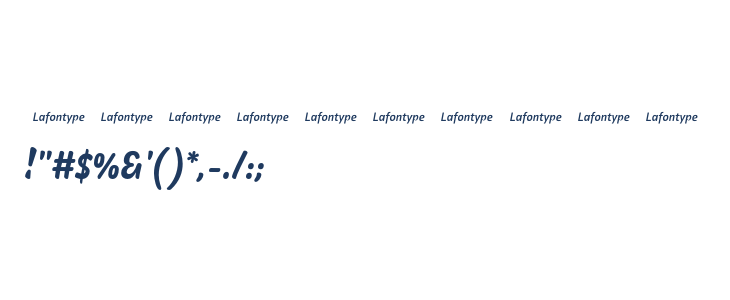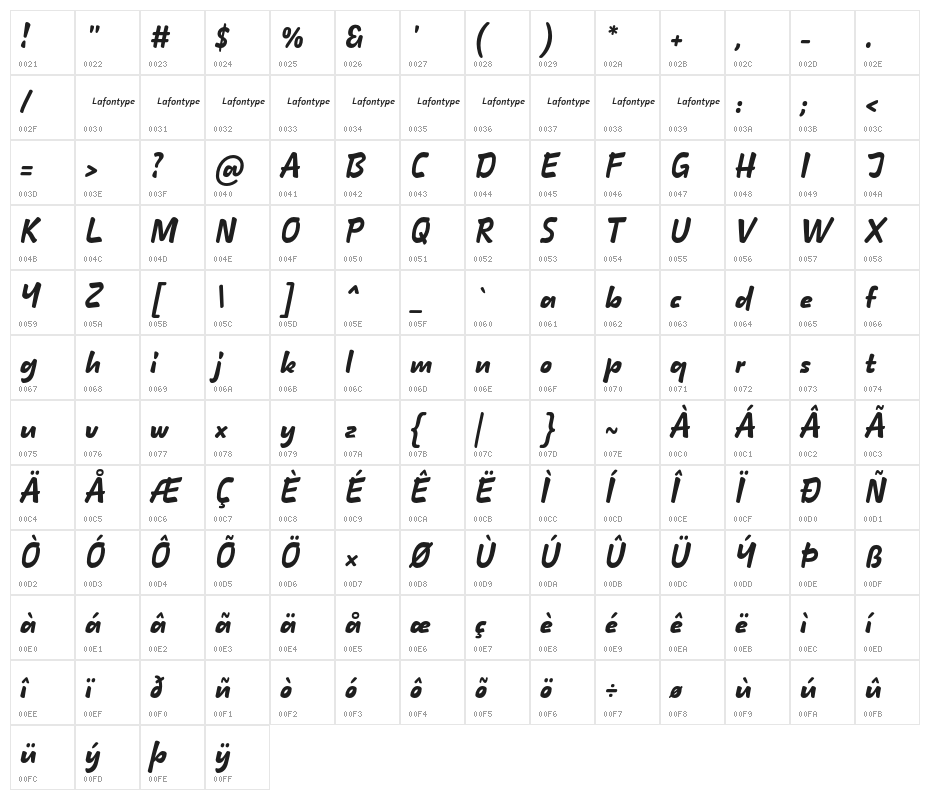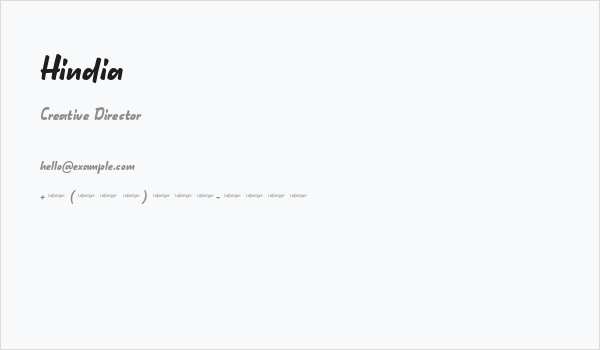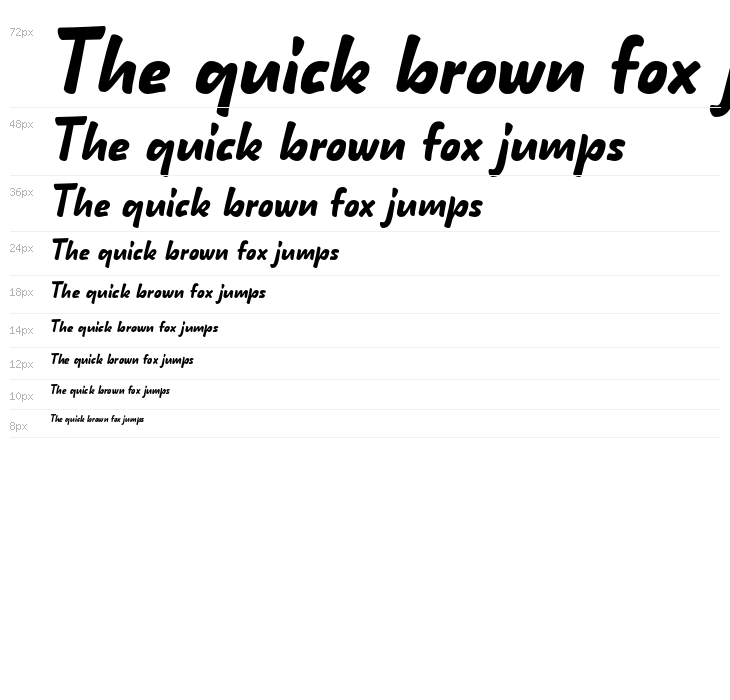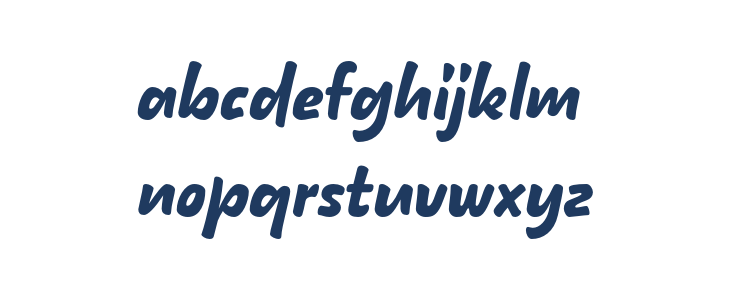
Hindia Font
Hindia Description
This font features a bold and dynamic script style, characterized by its smooth, flowing curves and slightly slanted letters. The uppercase letters are bold and prominent, while the lowercase letters maintain a consistent flow, enhancing readability. The font's design is modern yet retains a touch of classic script elegance, making it versatile for various design needs. The numerals and special characters are crafted to match the overall aesthetic, ensuring a cohesive look across all text elements. This font is ideal for projects that require a personal and expressive touch, such as branding, invitations, or artistic designs.
| Use Case | Logos, Headlines, Artistic designs |
| Proposed Projects | Ideal for branding, invitations, artistic designs, and any project needing a personal, expressive touch. |